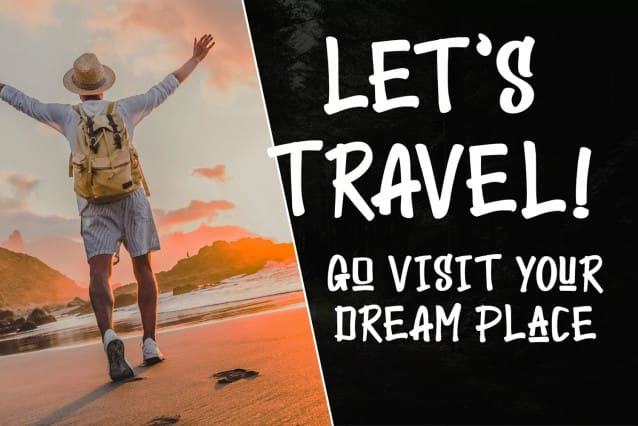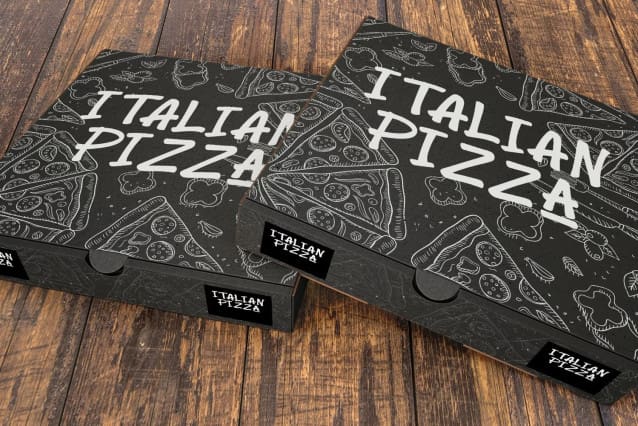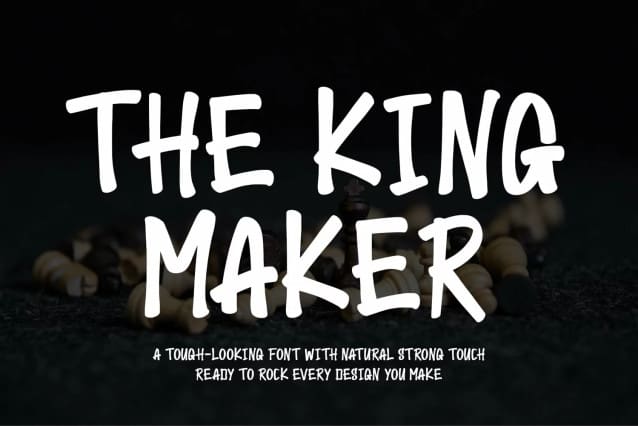
The King Maker Font
The King Maker Font is one unique and creative display font. Its relaxed charm makes it look stunning, easy to read, and incredibly versatile. This will add a fun and friendly touch to any of your projects. This font is PUA encoded which means you can access all the glyphs easily. Fall in love with its incredibly versatile style and use it to create spectacular designs!